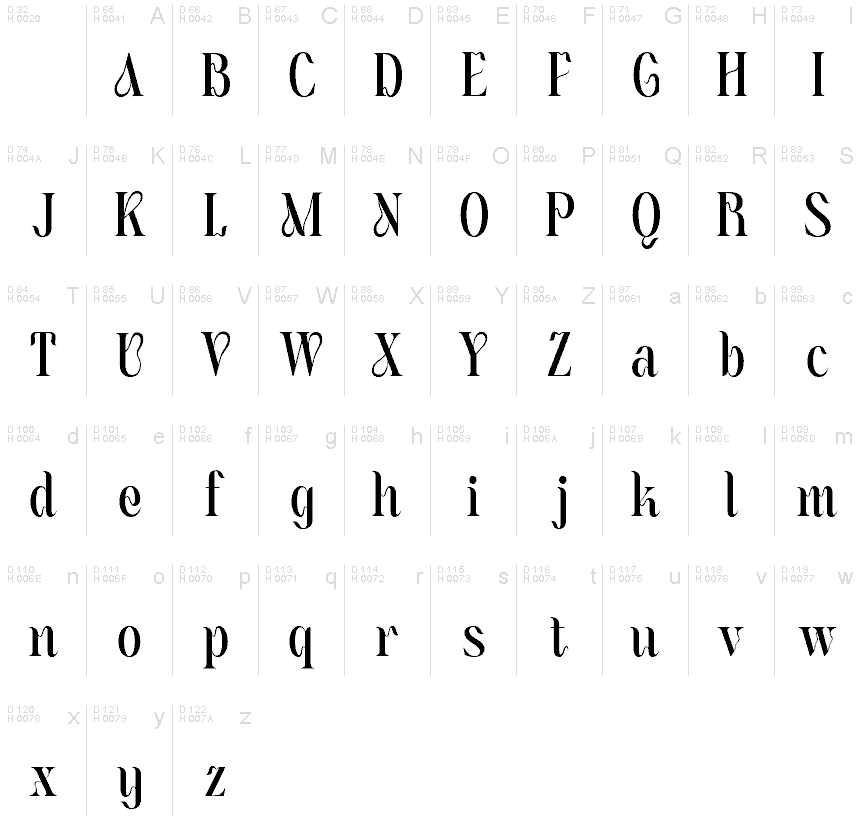
CS Blair Demo Regular
CS Blair font by Craft Supply Co. uses a classic serif style with elegant features for a sophisticated appearance every time. Vintage yet timeless, it carries the identity and charm of traditional designs that reach modern audiences as well. The free condensed font includes high contrast between its strokes with refined characters for every presented material.
Design an experience of luxury for readers and viewers alike by sharing fashion magazines, branding designs, and logo art projects or advertising vintage apparel collections. With all caps characters added to the mix, you can highlight elements in movie posters or packages where the vintage era remains ever-present.